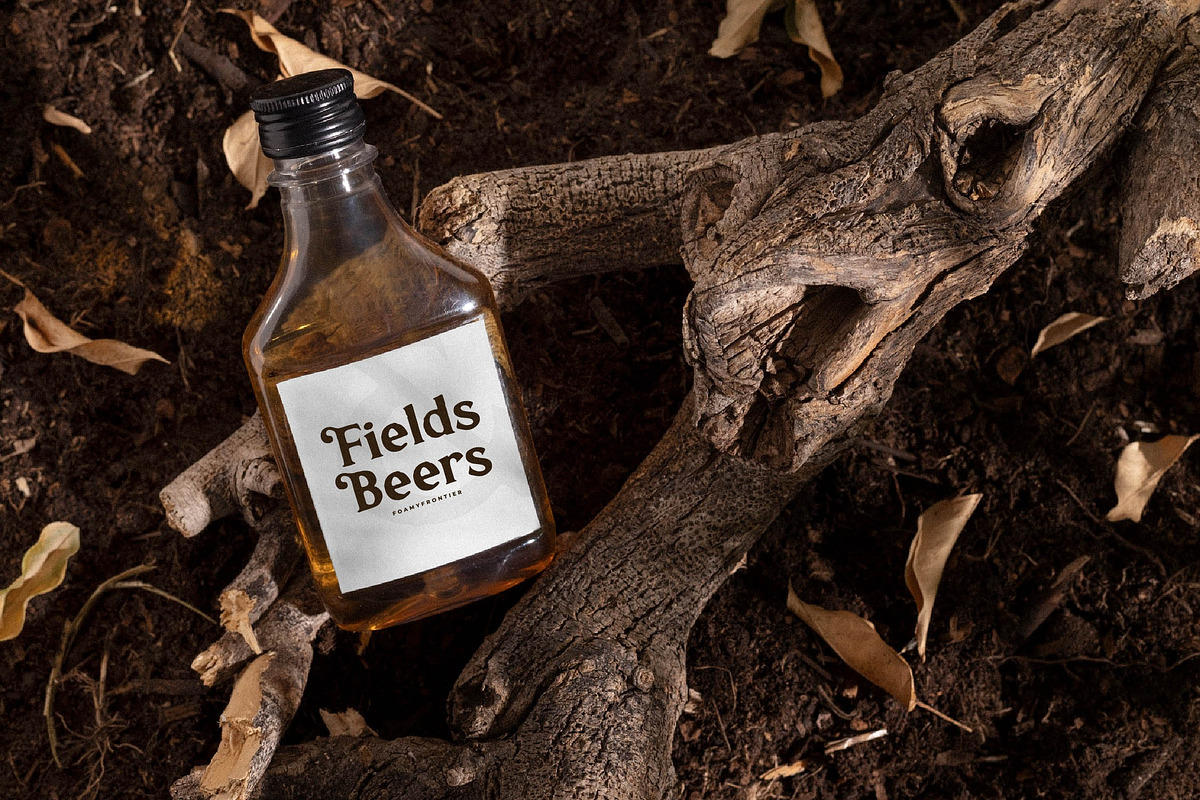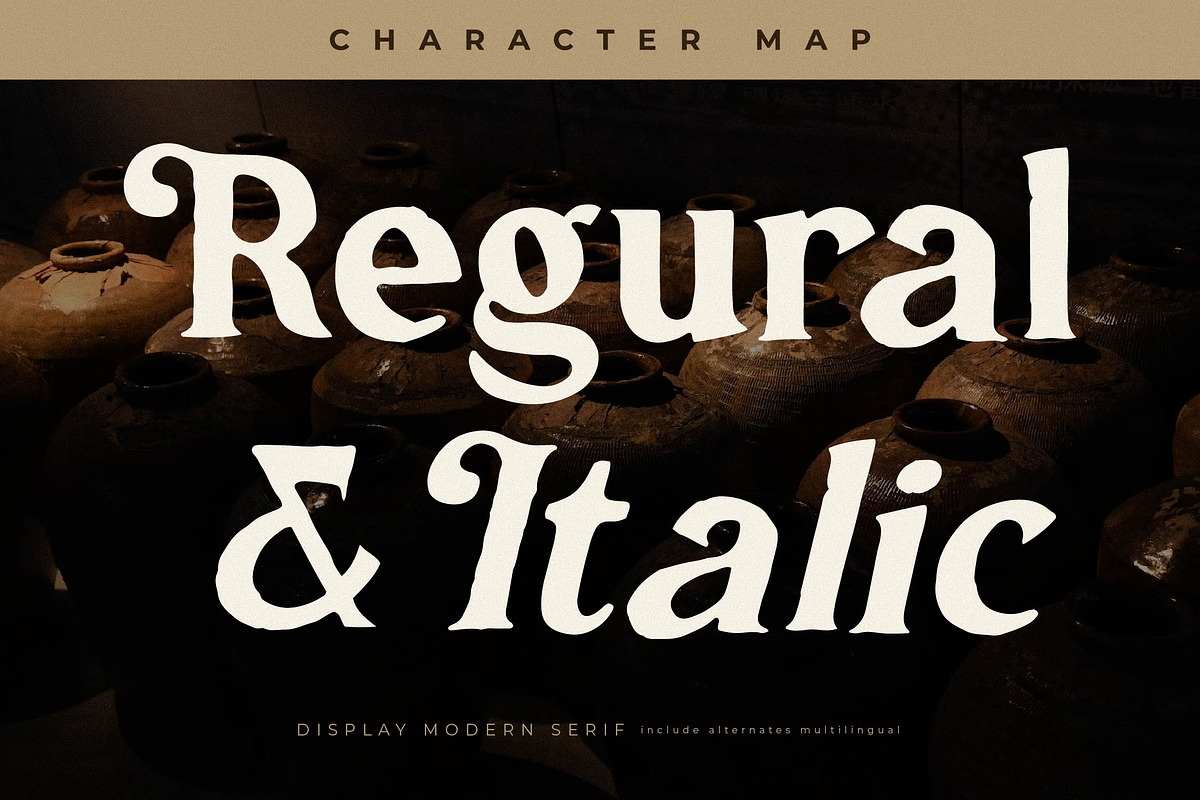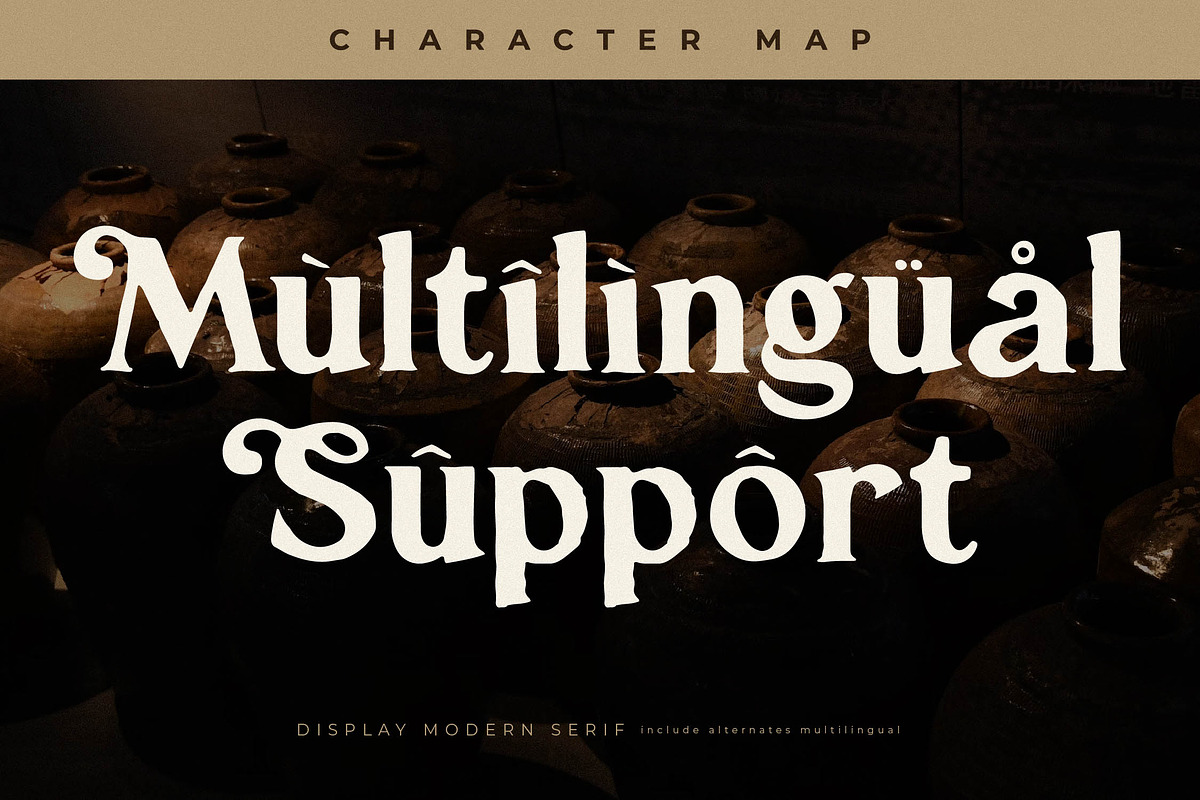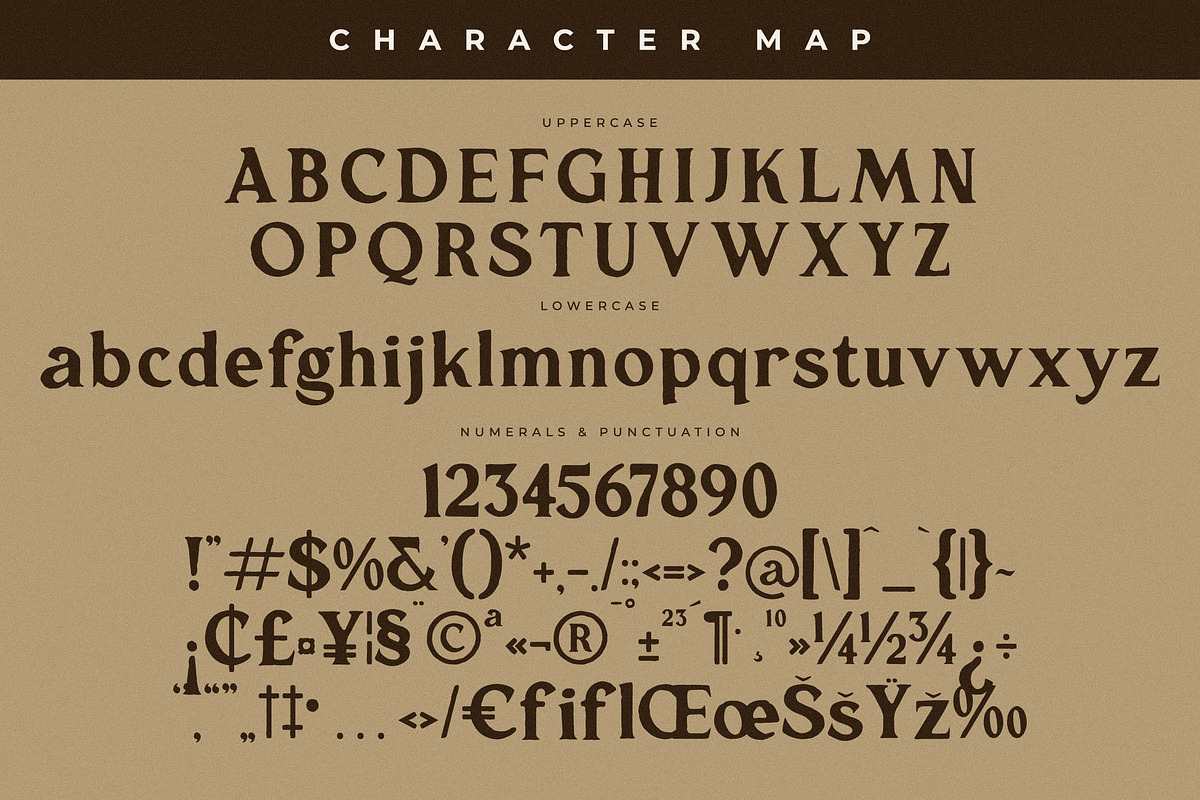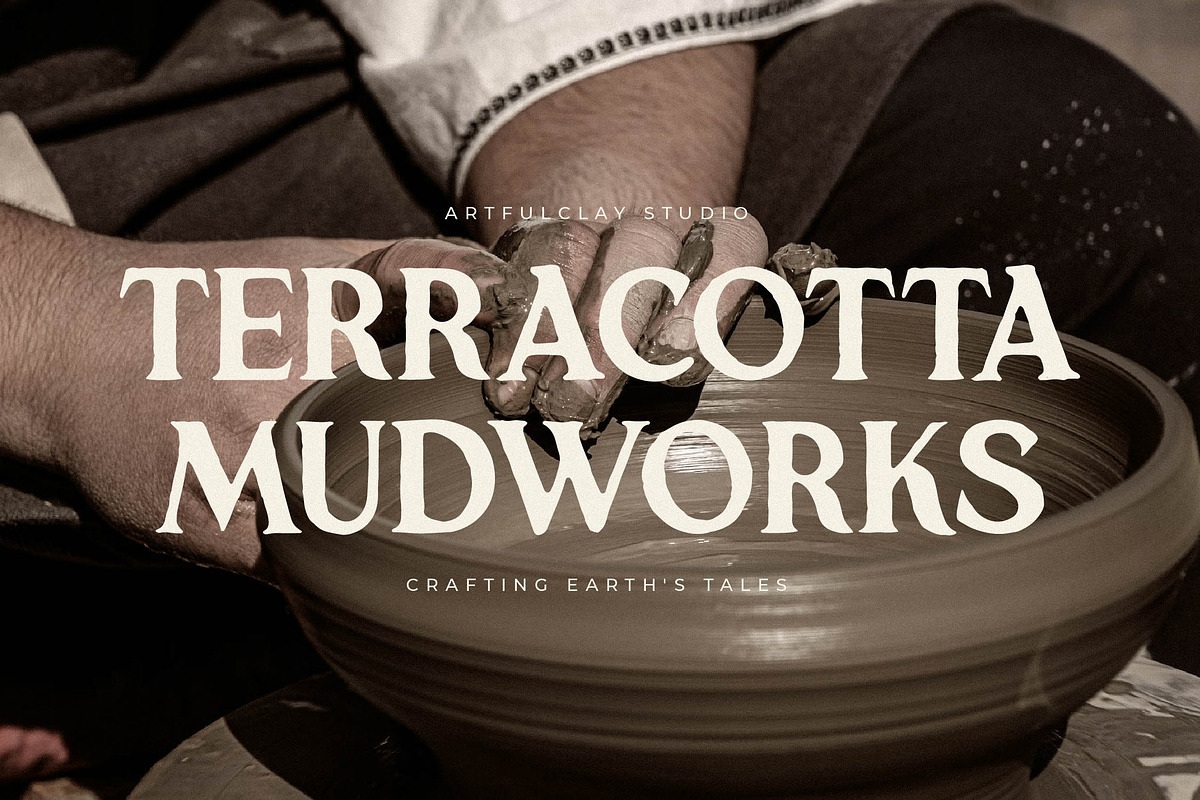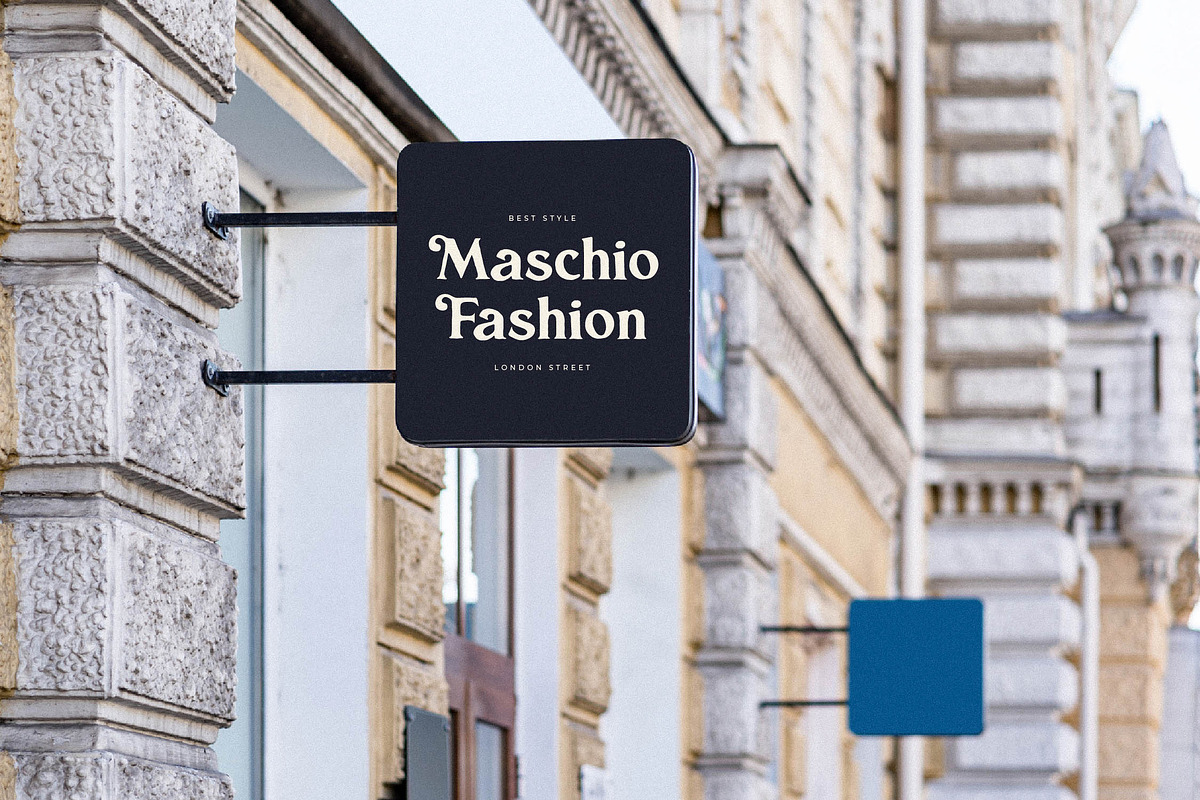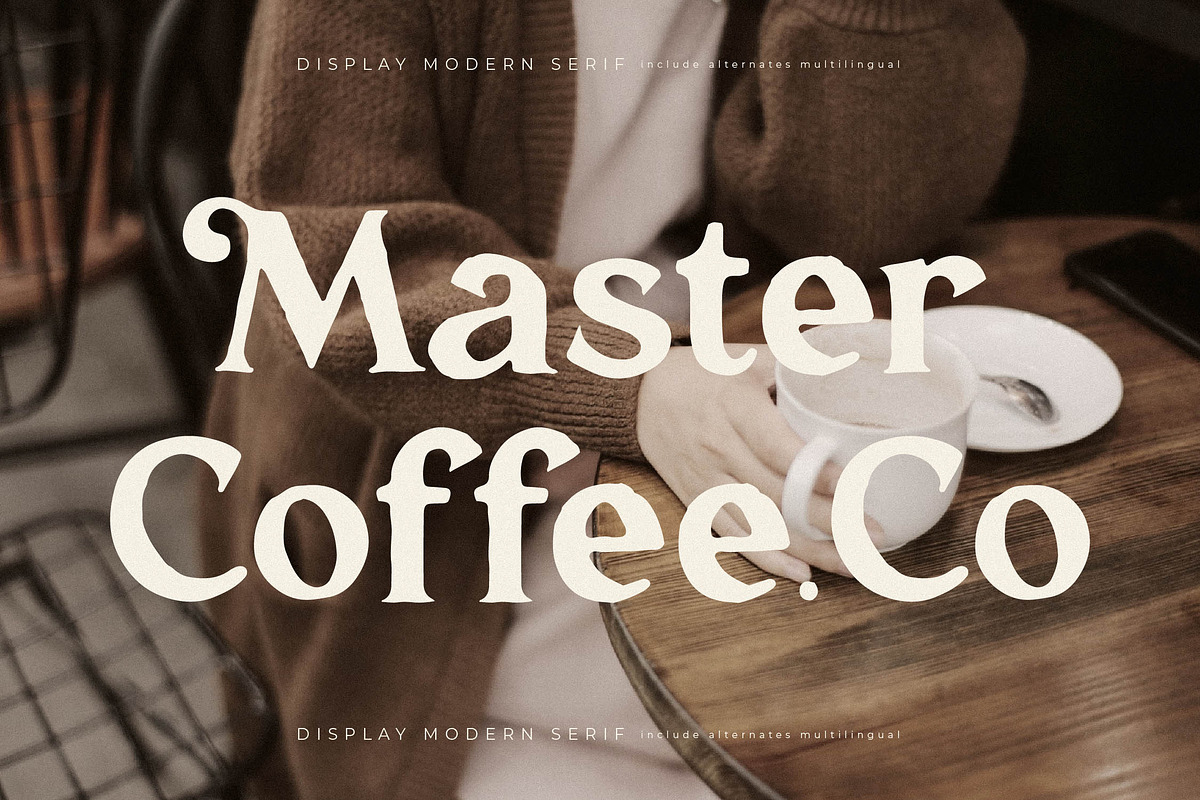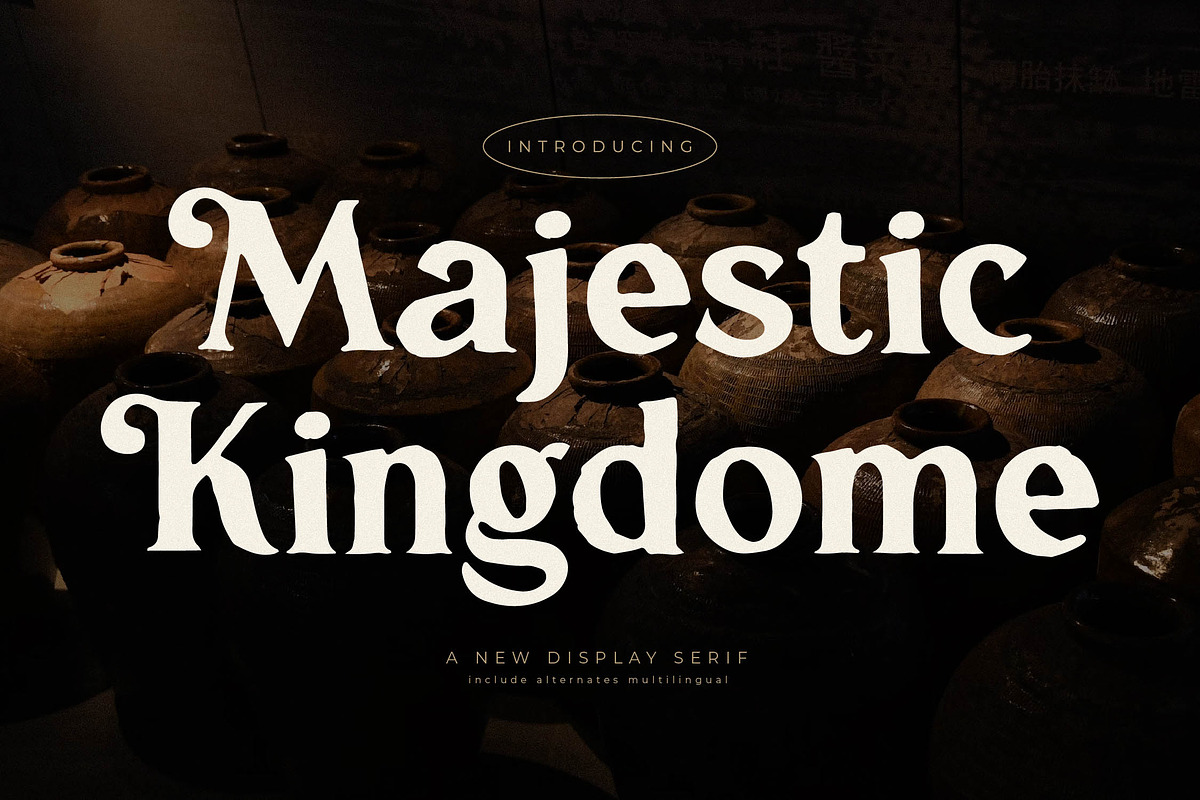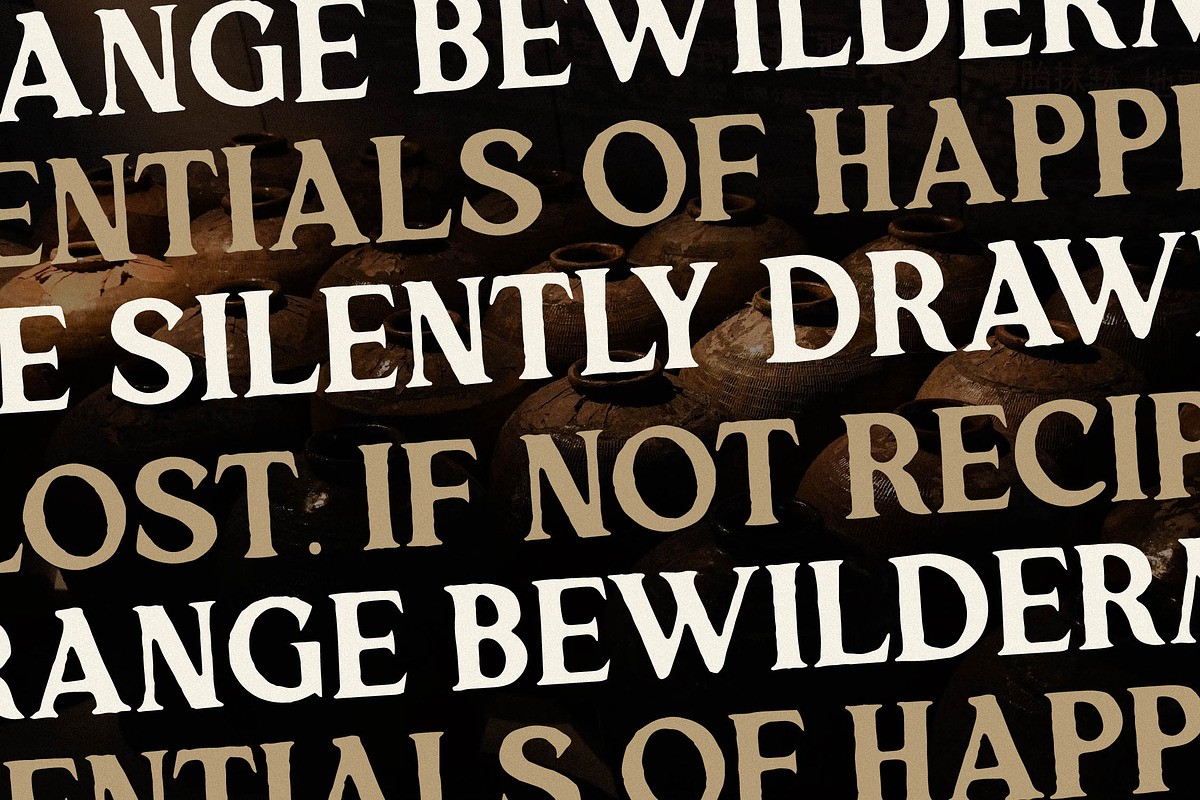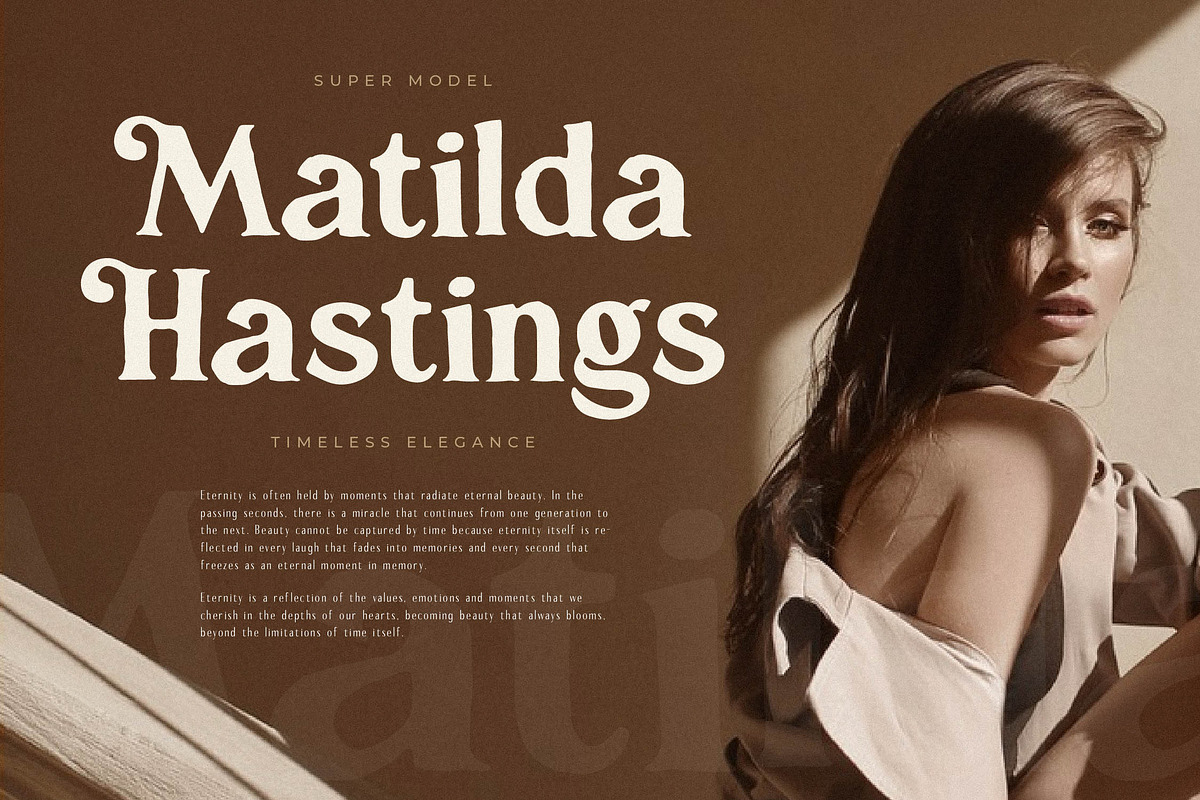
Majestic Kingdome New Display Serif
Proudly present Majestic Kingdome Typeface , created by Storytype, A serif modern and classic typeface that has own unique style & modern look. This typeface is perfect for an elegant & luxury logo, book or movie title design, fashion brand, magazine, clothes, lettering, quotes, and so much more.